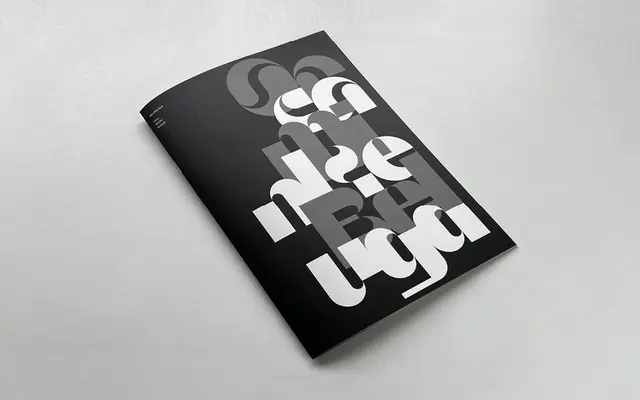
Orca, Minke and Beluga
A printed specimen accompanying the Orca, Minke and Beluga collection from MuirMcNeil, a studio known for systematic and parametric type design.
The page describes a 24 x 17 cm, 16-page printed specimen that ships free with purchases of the Orca, Minke and Beluga typeface collection. MuirMcNeil's work is characterised by rigorous geometric and systematic approaches, and the three family names suggest a cohesive collection. Little additional detail about the typefaces themselves is present on this page.
The page provides no detailed specimen or classification text; the three-family collection name and Muir McNeil's known geometric, system-based design approach suggest display-oriented geometric typefaces.